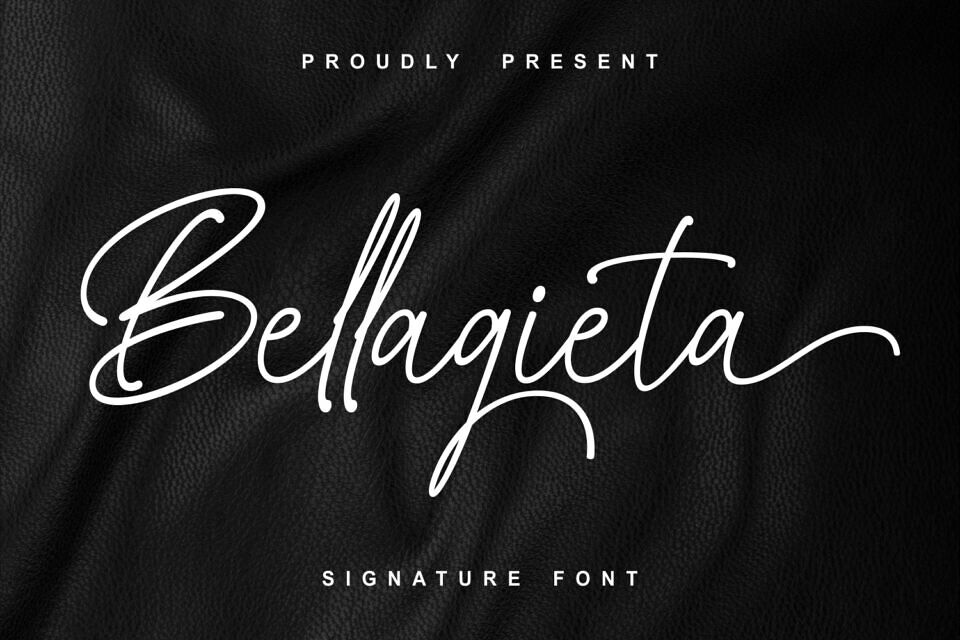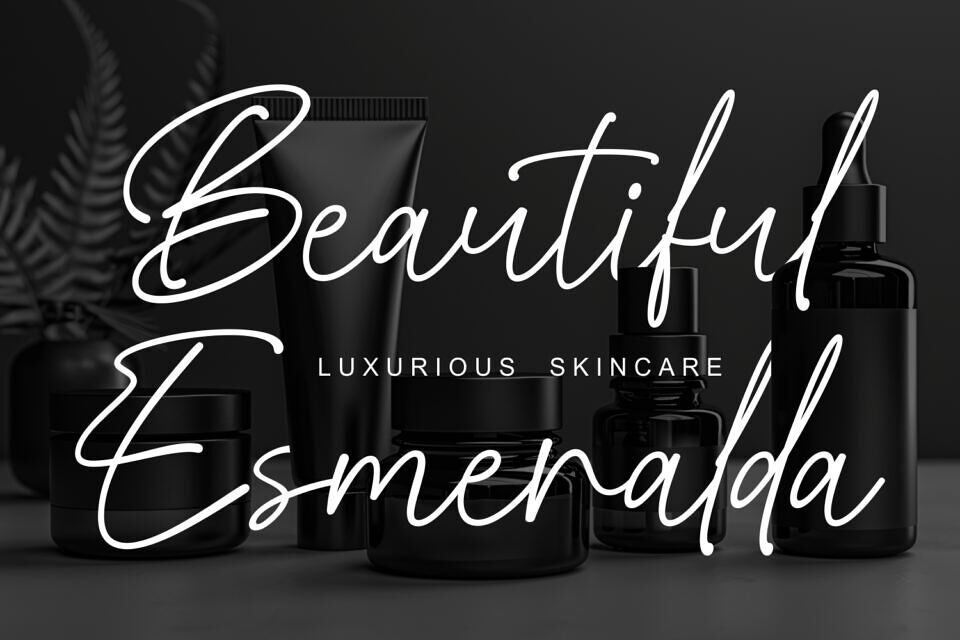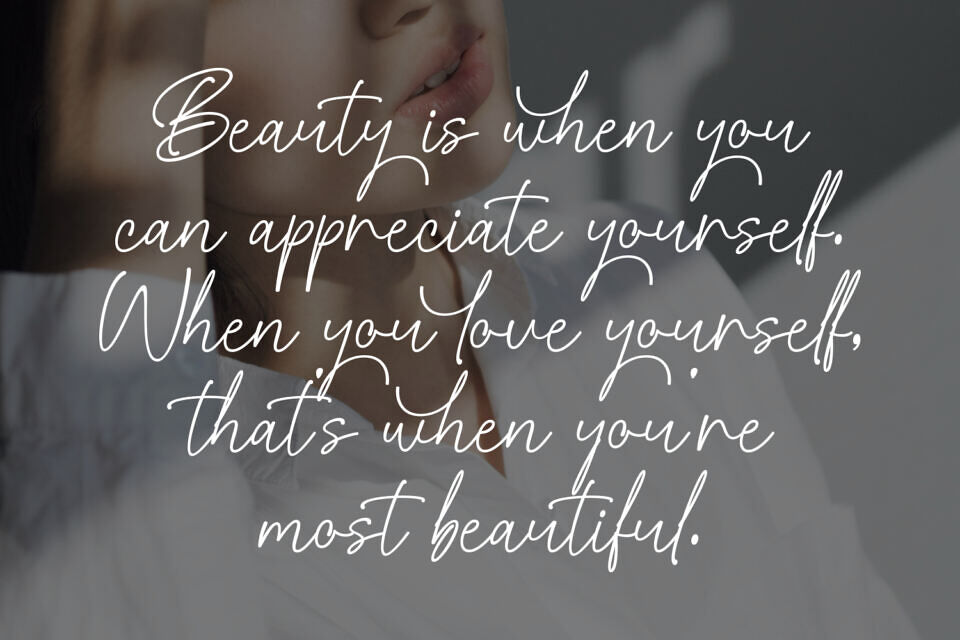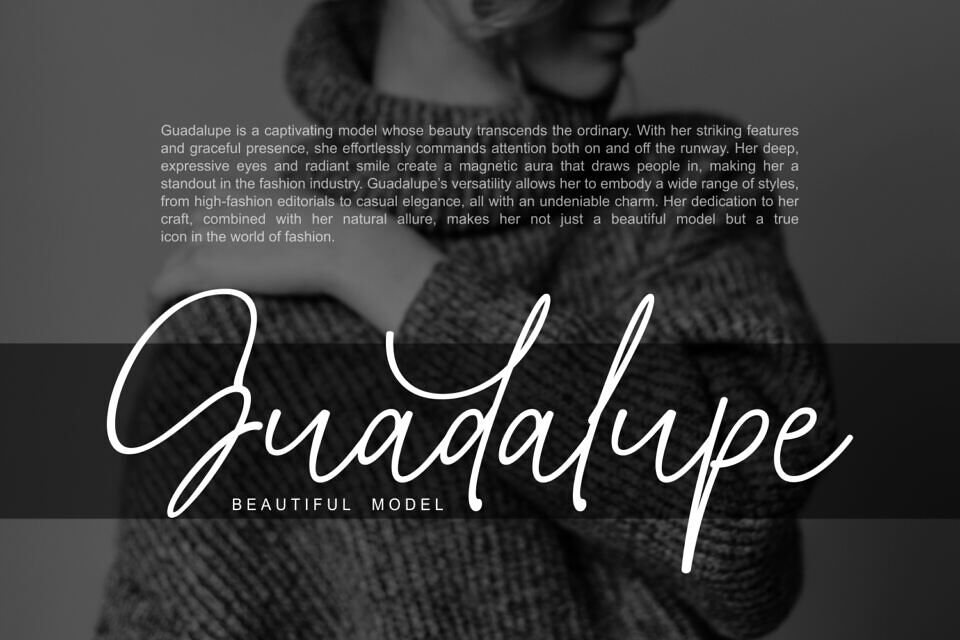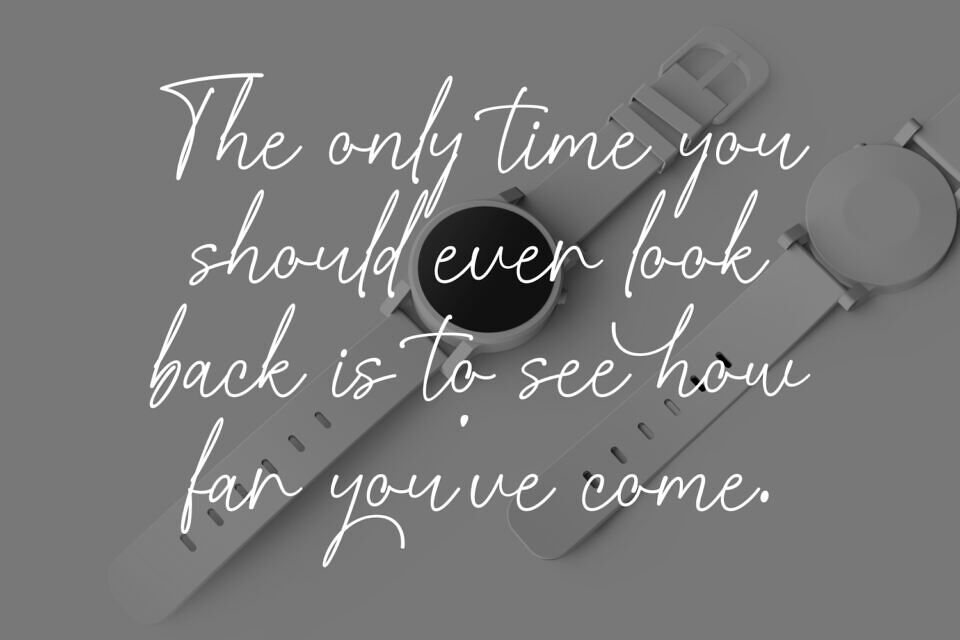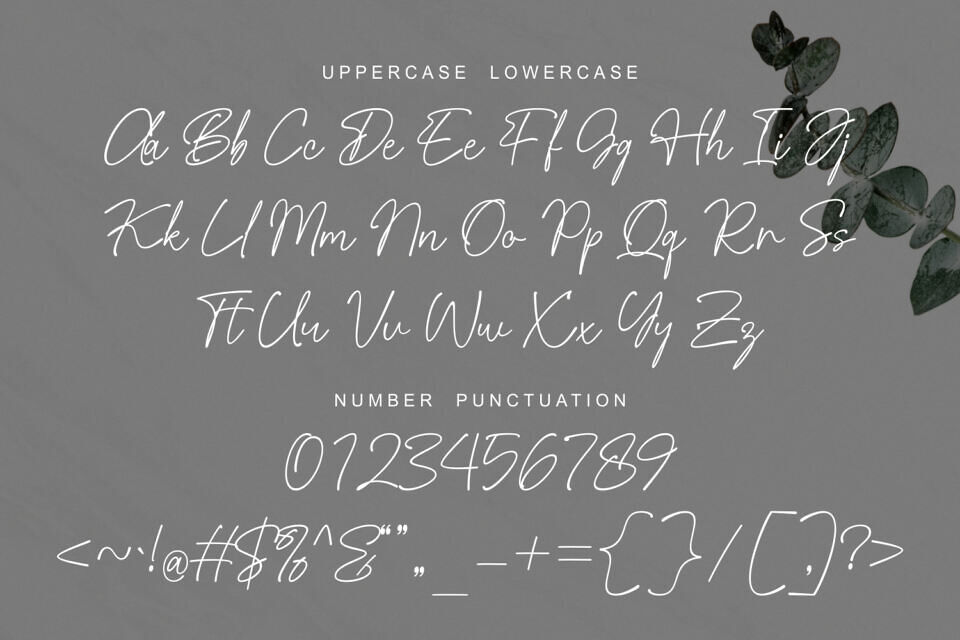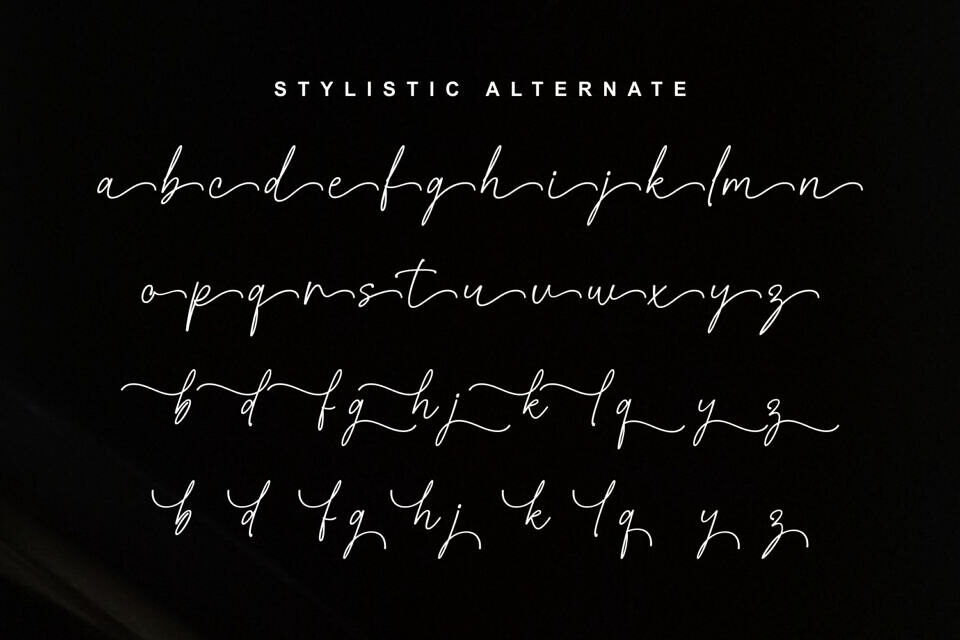
Bellagieta is a refined and versatile typeface, perfect for elevating any creative project. Whether you’re working on logos, branding, home decor designs, product packaging, or creating quotes, posters, and greeting cards, Bellagieta adds a touch of luxury and sophistication. Its graceful script is ideal for projects that demand an elegant and polished aesthetic.